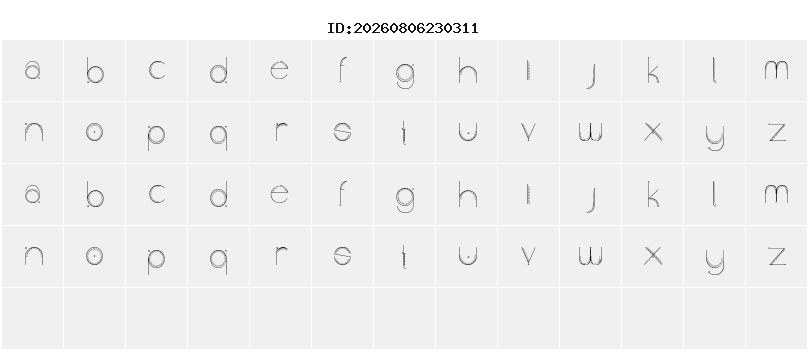
Obscura Preview
• Font Name: Obscura
• Full Font Name: Obscura
• PostScript Name: Obscura
• Manufacturer: Emilie Catherine Derbins
About Obscura.ttf
Obscura.ttf is a modern, elegant sans-serif font designed for ultimate readability and visual harmony. Perfect for branding, headlines, web design, and print materials.